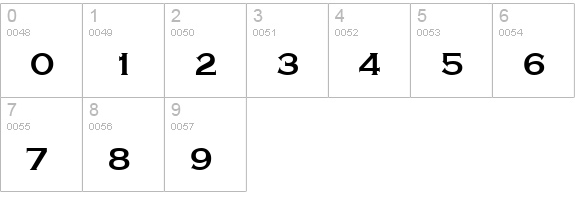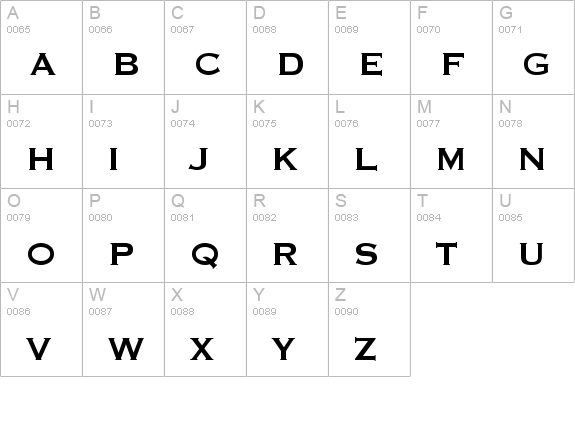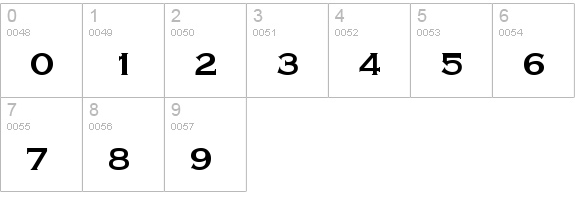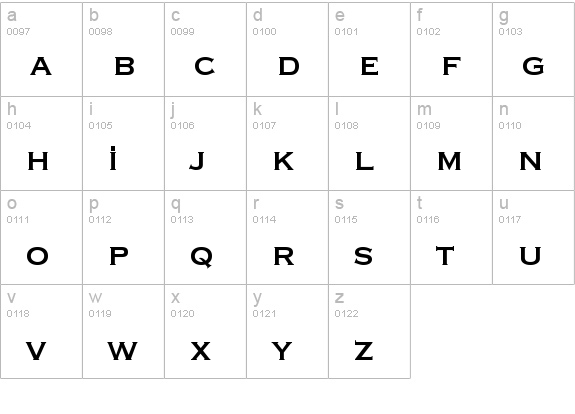
TR Schubert Bold Font Details
TR Schubert Bold is a strong, high-contrast variant in the TR typeface family \xE2\x80\x94 well suited to headlines, attention-grabbing titles, and strong calls-to-action.
TR Schubert Bold is a striking and modern font that exudes confidence and boldness. Its thick, strong lines make a powerful statement, perfect for headlines, titles, and other attention-grabbing text. The bold weight of this font ensures that your message will not go unnoticed, making it ideal for branding and marketing materials. What sets TR Schubert Bold apart is its versatility - it can be used in a variety of design projects, from print to digital, with ease. Whether you're creating a poster, website, or logo, this font will add a touch of sophistication and strength to your design. Best of all, TR Schubert Bold is available for free download at FontsMarket.com. Now you can access this high-quality font without any cost, making it a valuable addition to your font collection. Don't miss out on the opportunity to enhance your designs with TR Schubert Bold - download it today and see the impact it can have on your projects!